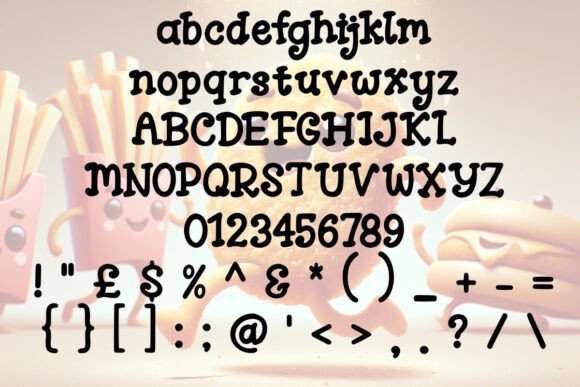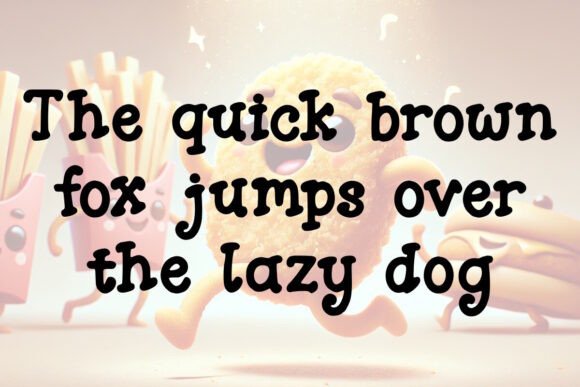
Introducing Chicken Nugget Font: The Ultimate Addition to Your Design Arsenal
Are you tired of using the same old fonts in your designs? Look no further! Say hello to Chicken Nugget, a warm, bouncy, and slightly quirky font that’s sure to bring a smile to your face. With its rounded, chunky letterforms and playful wobble, this font is the perfect addition to any design project that needs a dash of fun and whimsy.
The Personality of Chicken Nugget Font
Chicken Nugget is more than just a font – it’s a personality. It’s the embodiment of warmth, friendliness, and approachability. This font feels like a big hug in typography form. Its rounded edges and chunky letterforms give it a soft, cuddly feel that’s impossible to resist. Whether you’re working on a branding project, a children’s book, or a menu for a cozy diner, Chicken Nugget is the perfect choice to add a touch of personality to your design.
What Makes Chicken Nugget Font So Special?
So, what sets Chicken Nugget apart from other fonts? Here are just a few things that make it truly special:
- Rounded, chunky letterforms: Chicken Nugget’s letterforms are designed to be friendly and approachable. The rounded edges and chunky shapes make it feel soft and cuddly, perfect for designs that need a warm and fuzzy feel.
- Playful wobble: Chicken Nugget’s letters have a subtle wobble to them, giving the font a sense of movement and energy. This wobble adds a playful touch to any design, making it perfect for projects that need a bit of whimsy.
- Lighthearted and cozy charm: Chicken Nugget has a certain charm that’s hard to put into words. It’s like a warm hug on a cold day – it makes you feel happy and comforted. This charm is perfect for designs that need to feel welcoming and inviting.
Perfect for Whimsical Branding and Design Projects
Chicken Nugget is the perfect font for designers and crafters who love to work on whimsical branding and design projects. Whether you’re creating a logo for a children’s play center, a menu for a quirky cafe, or a title page for a kids’ book, Chicken Nugget is the perfect choice. Its playful, bouncy feel is sure to delight your audience and add a touch of magic to your design.
Tips for Using Chicken Nugget Font in Your Designs
Here are a few tips for using Chicken Nugget in your designs:
- Use it for headlines and titles: Chicken Nugget is perfect for headlines and titles, where its playful, bouncy feel can really shine. Try using it to add a touch of whimsy to your blog posts, social media graphics, or marketing materials.
- Pair it with a serif font: For body text, try pairing Chicken Nugget with a serif font like Arial or Times New Roman. This will create a nice contrast between the playful, cursive feel of Chicken Nugget and the more traditional feel of the serif font.
- Experiment with colors and textures: Chicken Nugget looks great in a variety of colors and textures. Try experimenting with different colors, gradients, and textures to add depth and interest to your design.
| Font Name | Chicken Nugget Font |
| Author | Donna and D.A.V.E |
In conclusion, Chicken Nugget is a font that’s sure to bring a smile to your face and a touch of whimsy to your designs. With its rounded, chunky letterforms and playful wobble, it’s the perfect choice for designers and crafters who love to work on whimsical branding and design projects. So why not give it a try? Download Chicken Nugget today and add a delightful, golden-fried touch to your projects!
Whether you’re a seasoned designer or a crafty DIY enthusiast, Chicken Nugget is the perfect addition to your design arsenal. Its lighthearted and cozy charm is sure to delight your audience and add a touch of magic to your design. So what are you waiting for? Get creative with Chicken Nugget and see the difference it can make in your designs!